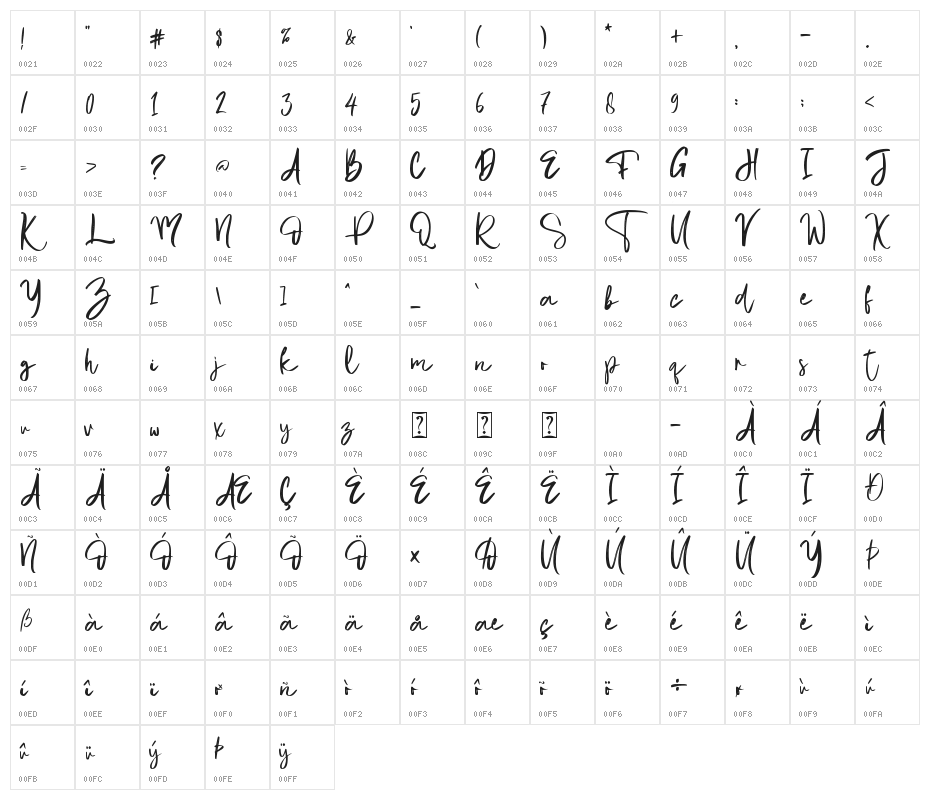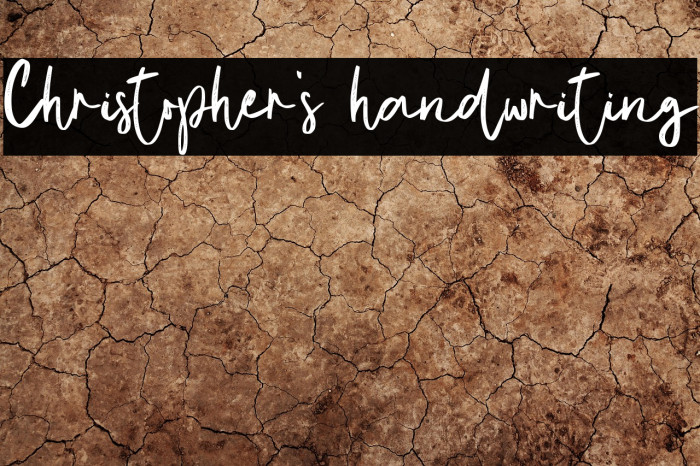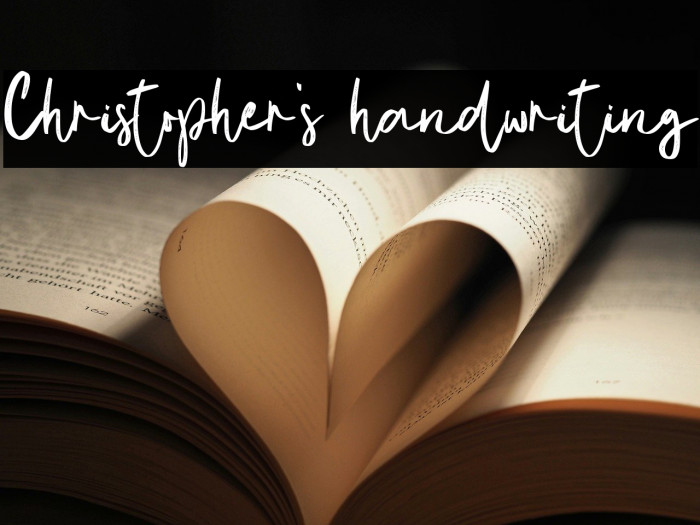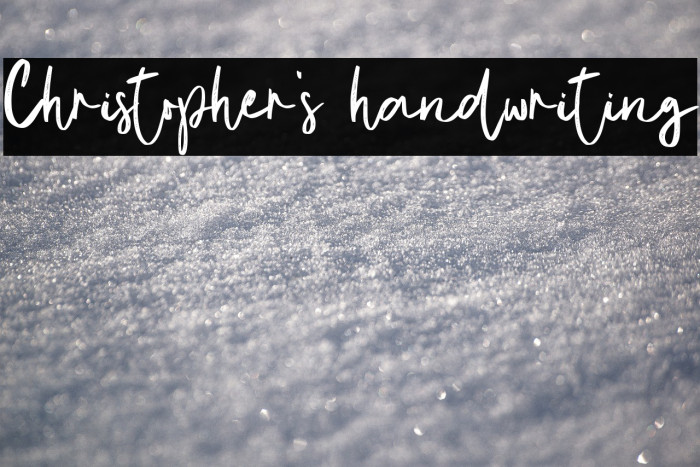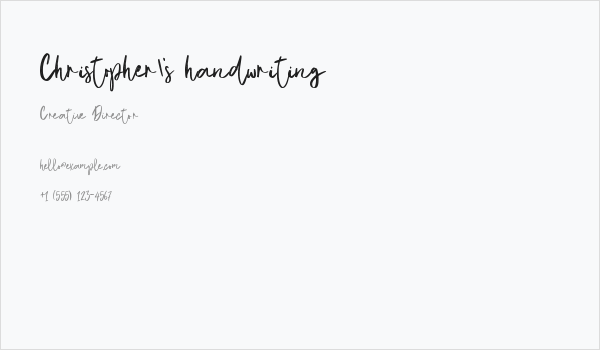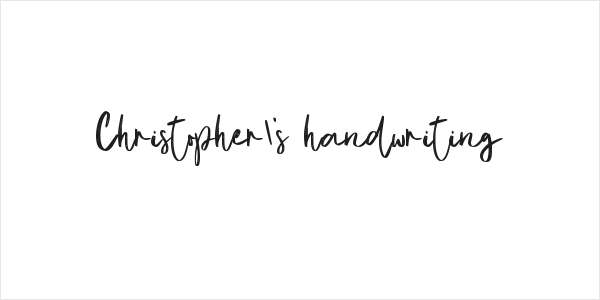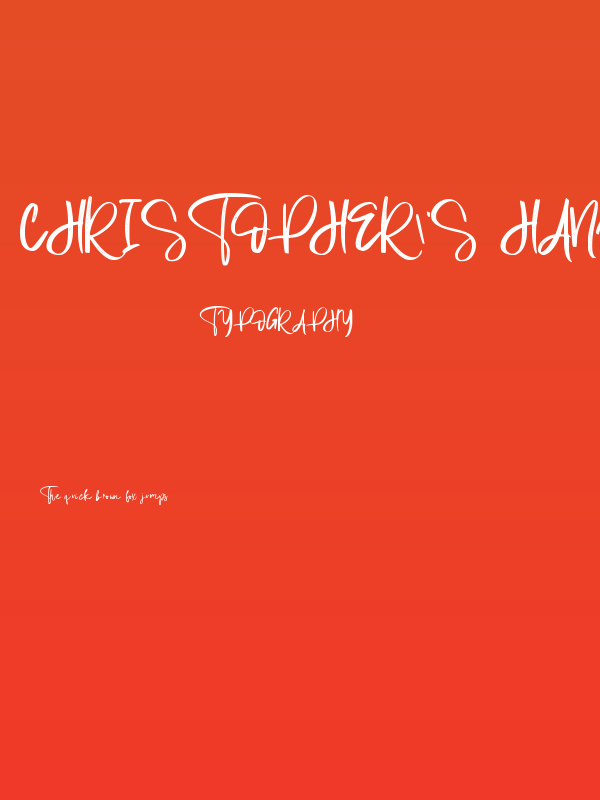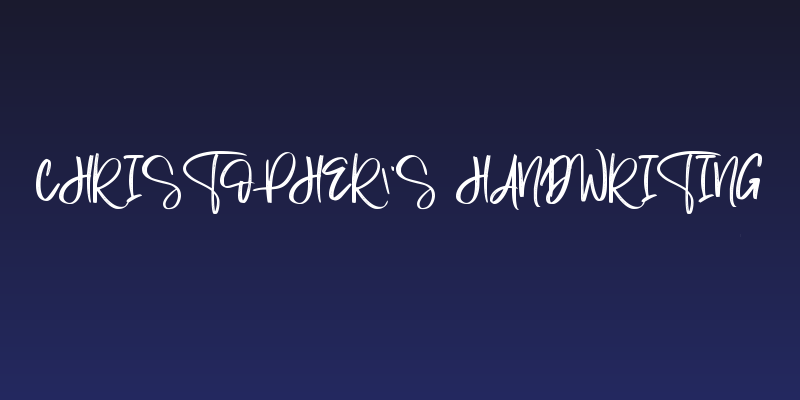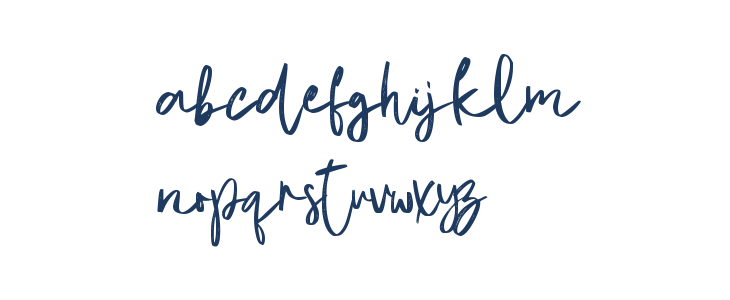
Christopher's handwriting Font
Christopher's handwriting Description
This font exudes a lively and personal touch, reminiscent of authentic handwriting with a modern flair. The letters are fluid and dynamic, featuring a mix of thick and thin strokes that add a sense of movement and energy. The uppercase characters are bold and expressive, while the lowercase letters maintain a consistent flow, enhancing readability. Numbers and special characters are crafted with the same attention to detail, ensuring a cohesive look across all text. This font is perfect for projects that require a personal, handwritten feel, such as invitations, greeting cards, or branding materials.
| Proposed Projects | Ideal for invitations, greeting cards, branding, and personal projects. |